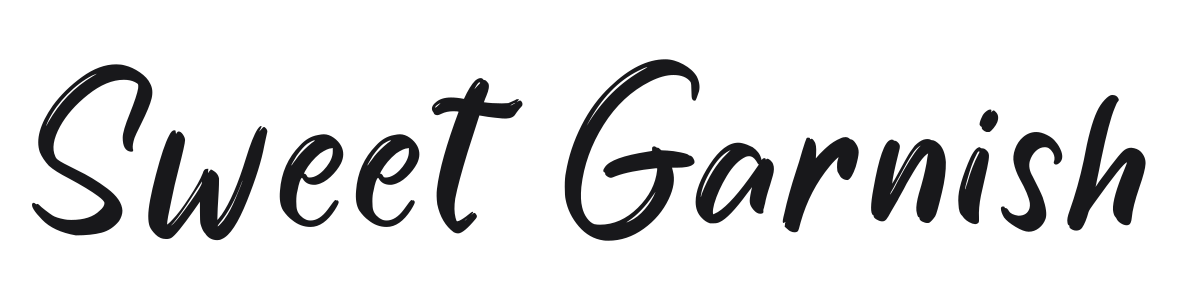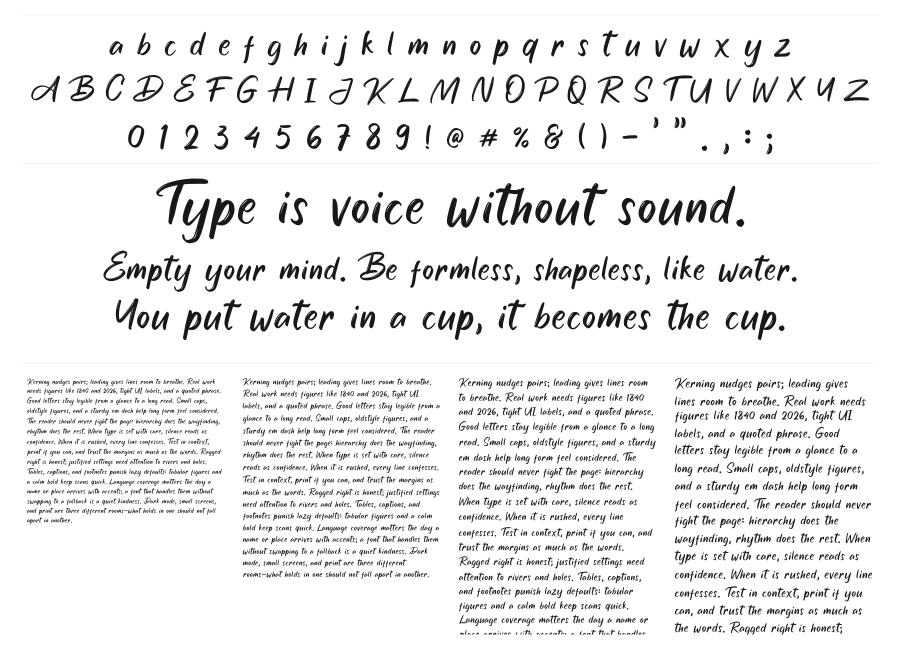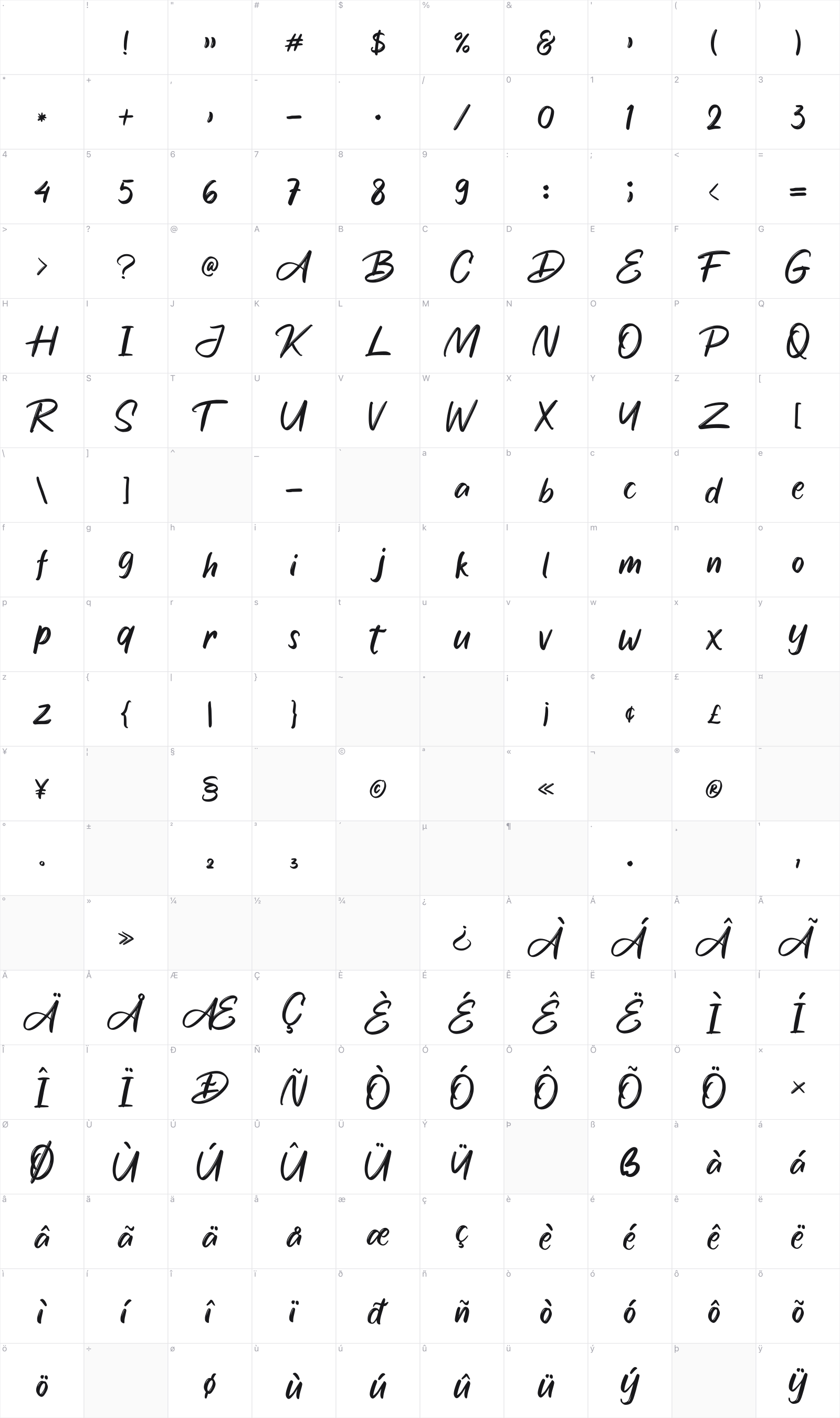
Sweet Garnish
Sweet Garnish is a casual brush script with a lively, hand-lettered rhythm and natural ink variation. The letters flow with spontaneous energy, connecting smoothly across words with an authentic brushstroke feel. It reads as warm and approachable, making it a natural choice for branding projects that want a human, handcrafted touch.